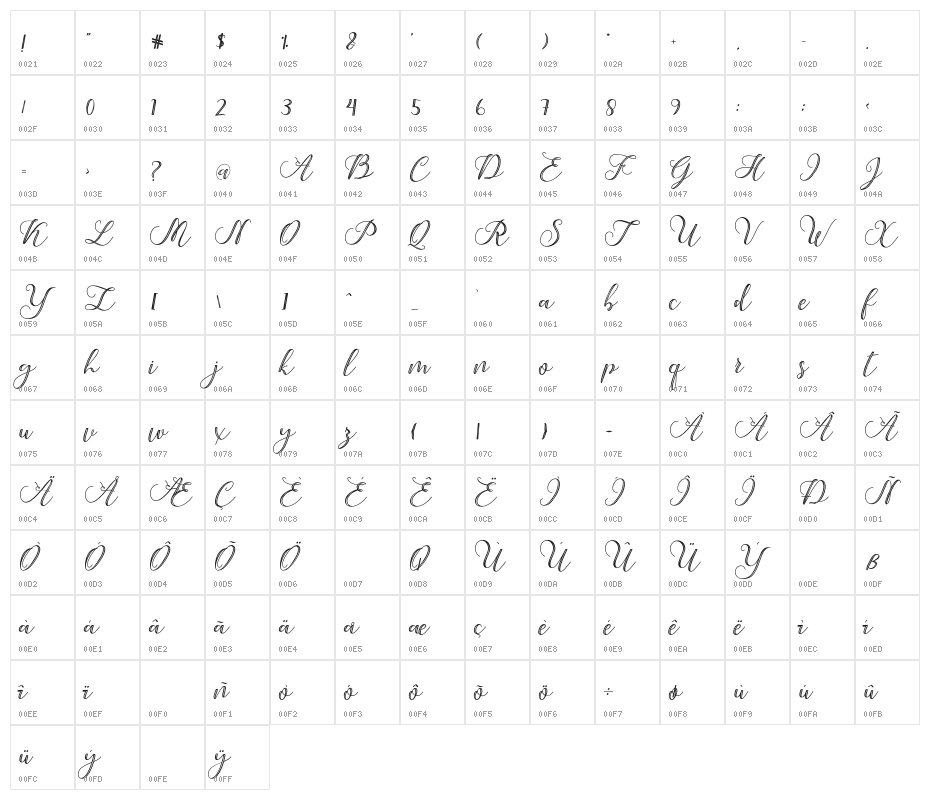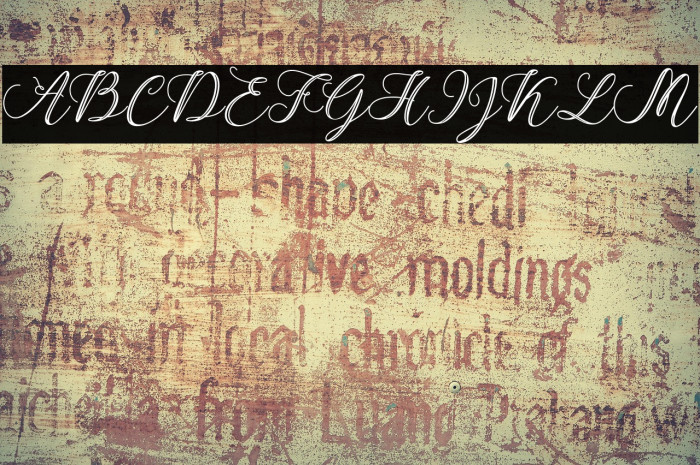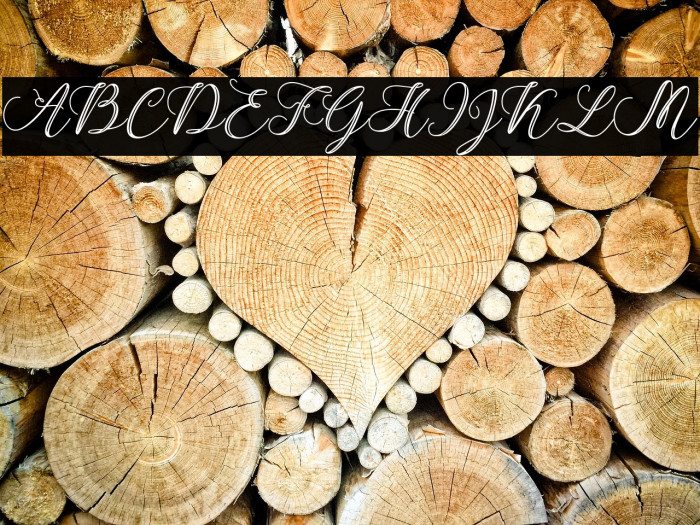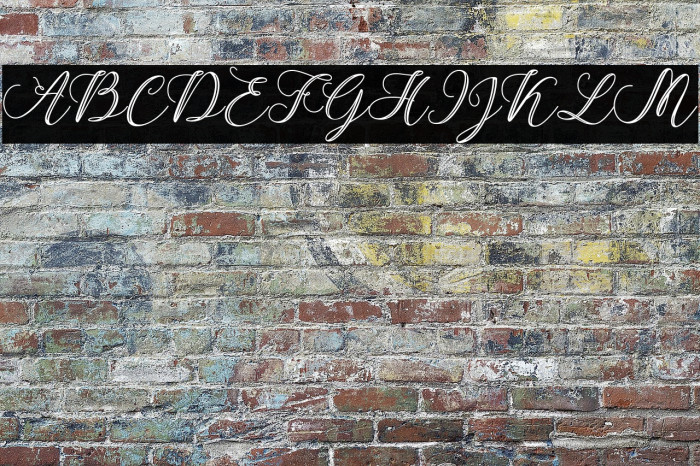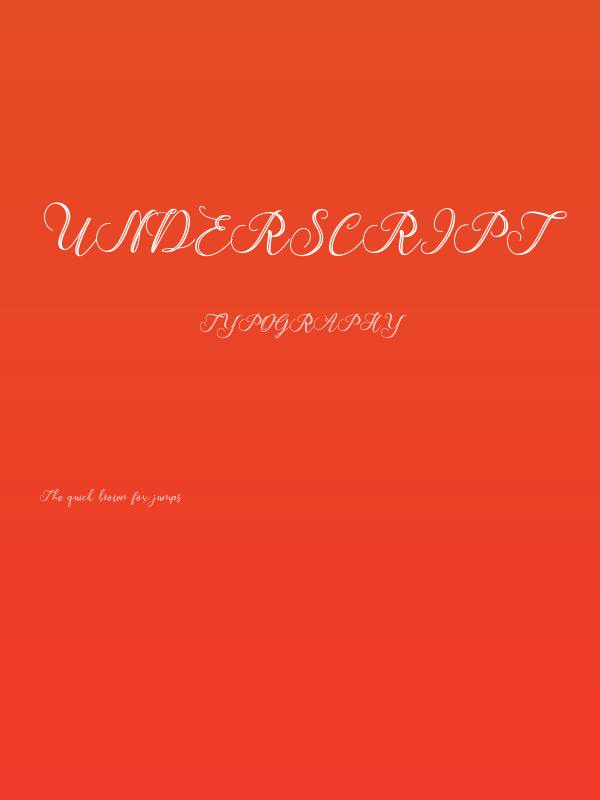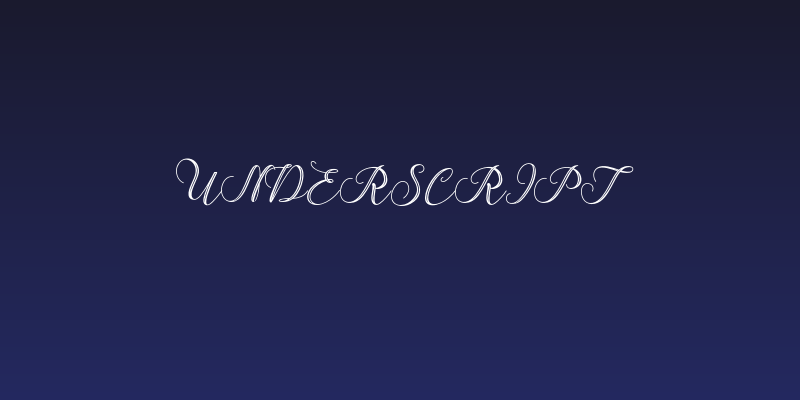
UnderScript Font
UnderScript Description
This elegant script font features a flowing, cursive style with intricate loops and flourishes. The uppercase letters are particularly ornate, with sweeping ascenders and descenders that give a sense of movement and grace. The lowercase letters maintain a consistent style, with a slightly more restrained flourish, making them highly readable while still retaining the decorative quality. The numerals are styled to match the letters, with a slight slant and elegant curves. Special characters are included, maintaining the same stylistic elements, ensuring a cohesive look across all text. This font is perfect for adding a touch of sophistication and elegance to any project.
| Overall Style | Elegant |
| Use Case | Logos, Invitations, Decorative text |
| Proposed Projects | Ideal for wedding invitations, elegant branding, greeting cards, and luxury product packaging. |